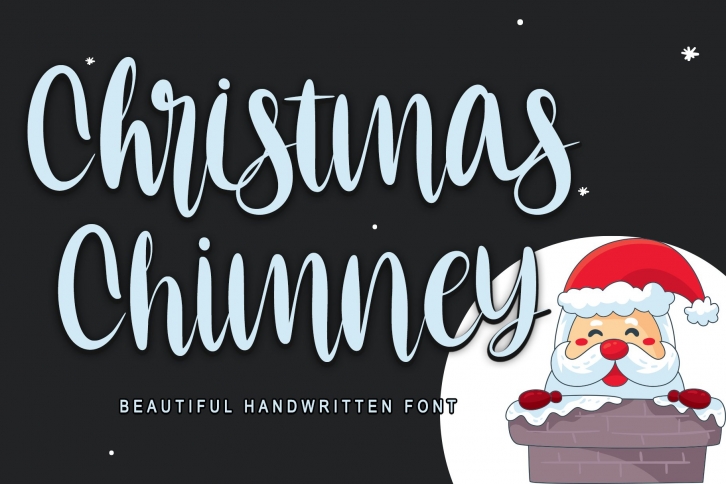
Christmas Chimney is a great font that was designed by Thomas Aradea. Imagine the amount of combinations you can create using this font! The archive is 4.11 MB and it was released on October 21, 2022. Christmas Chimney looks beautiful on wedding invitations, greeting cards, logos, posters, labels, t-shirt designs, logos, business cards and is perfect for use in ink or watercolor works, fashion, magazines, packaging and food menus, children's books and more!